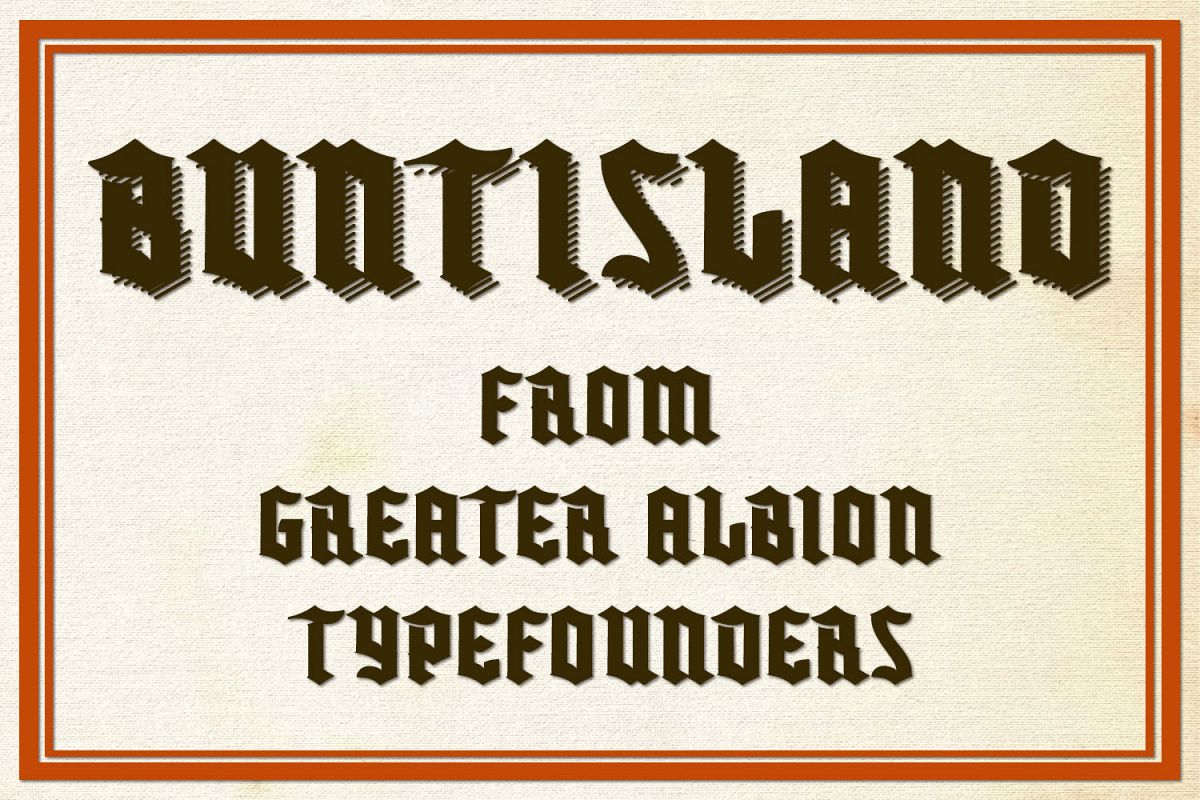
Buntisland Typeface Family
Buntisland (we wonder where we came up with that name from... another subconscious whim), is Greater Albion Typefounders blackletter release for Christmas 2016. The family consists of four typefaces- regular, weathered, shaded and shadowed, and has it's origin in a design challenge which came up in conversation, as all the best ones do. In this case it was 'design a legible all capitals black letter...'
Challenge accepted and completed!